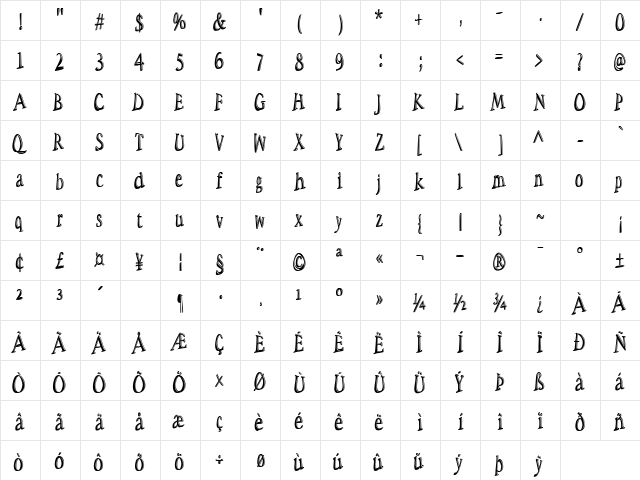
Space Woozies 3D Regular
Design Context for Space Woozies 3D Typeface
Space Woozies 3D is a composed and adaptable typeface that performs quietly and consistently across a wide range of design contexts.